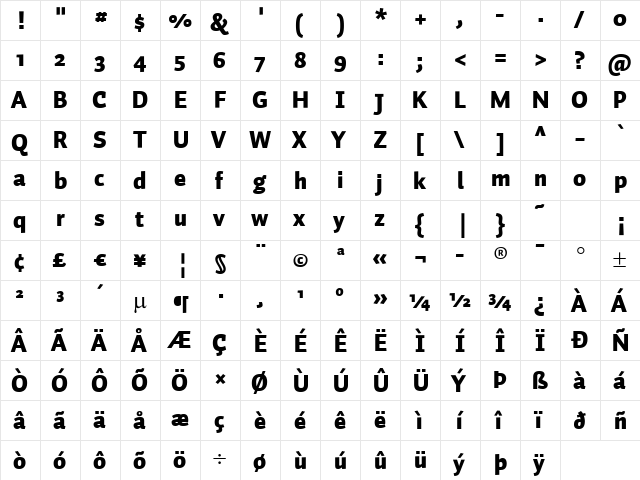
Auto 2 Black
Design Context for Auto 2 Typeface
Auto 2 takes a measured approach to typography — its balanced proportions and neutral character make it a reliable workhorse for both digital and print work.
Pro Tip: Use Auto 2 in both headline and body roles to test its range before committing to a single application.